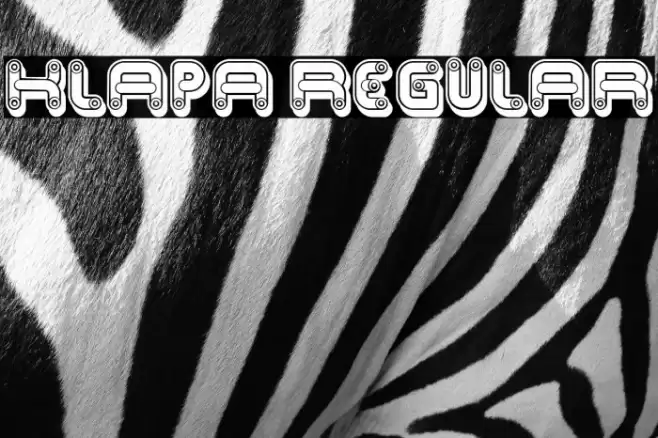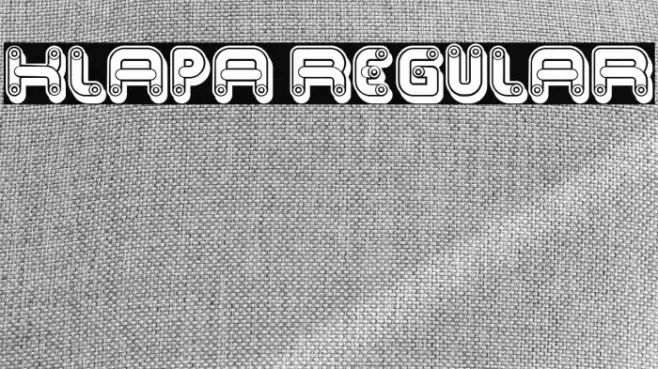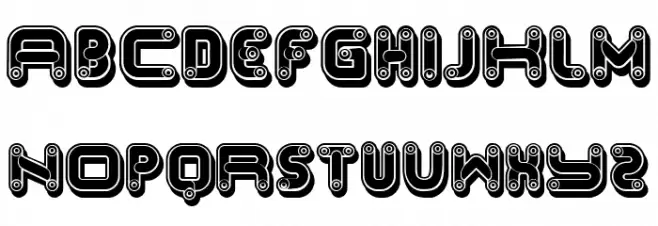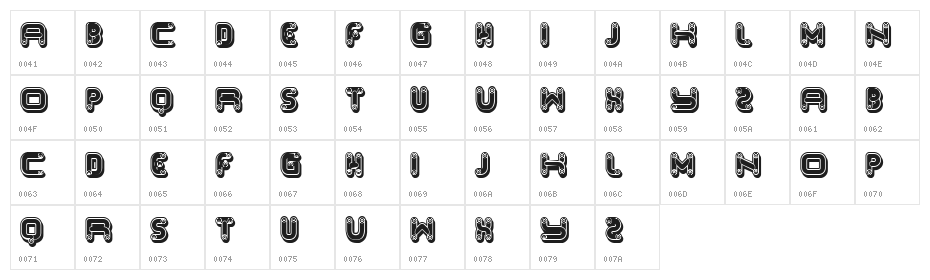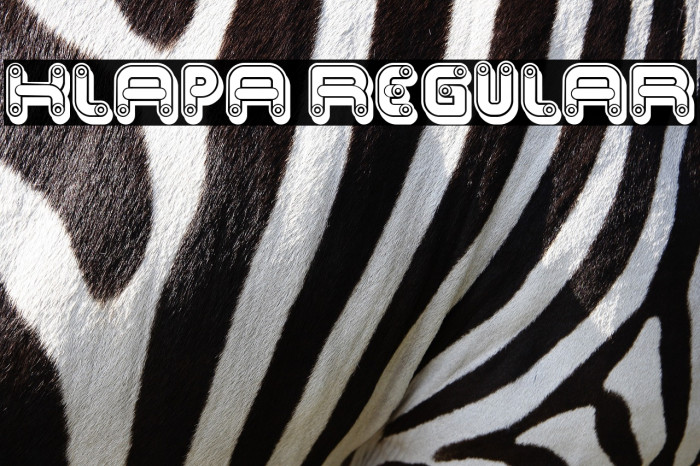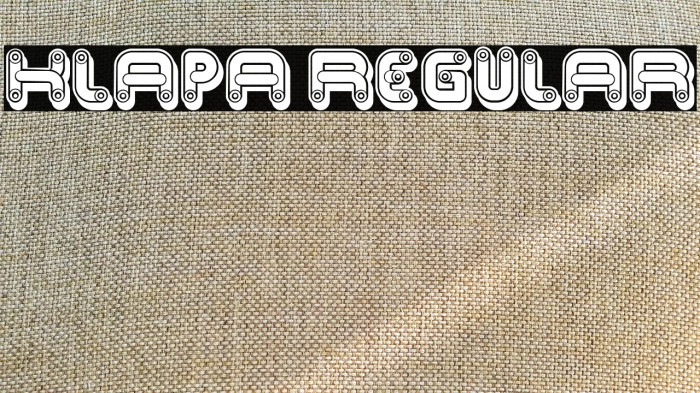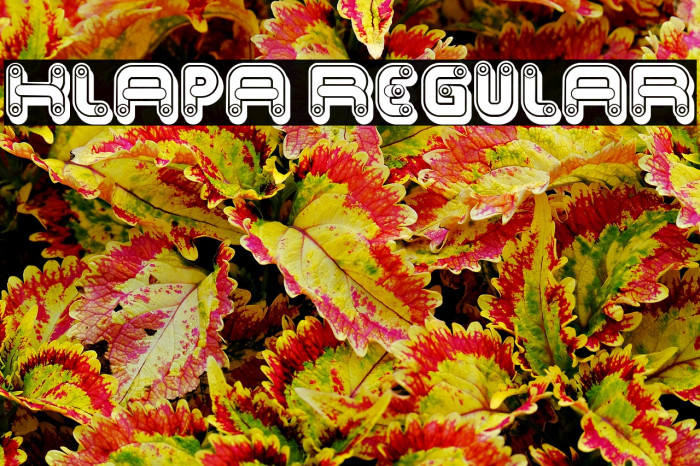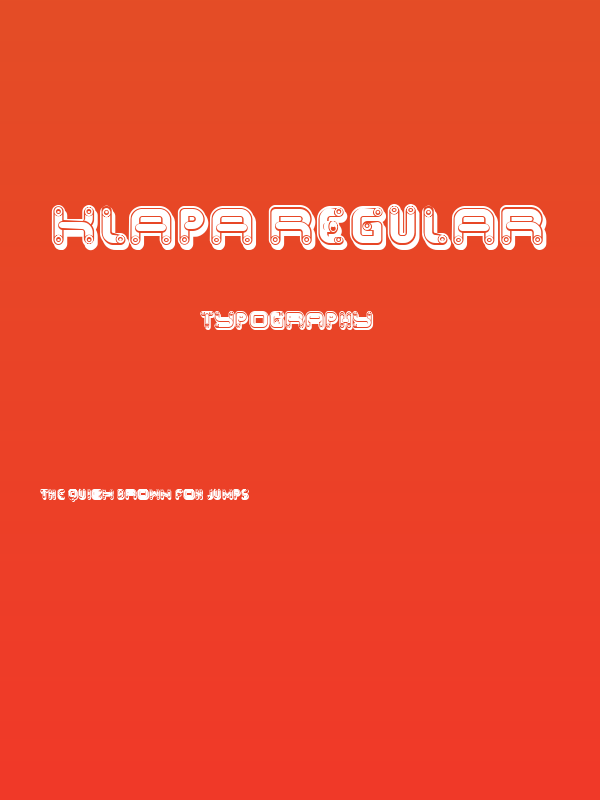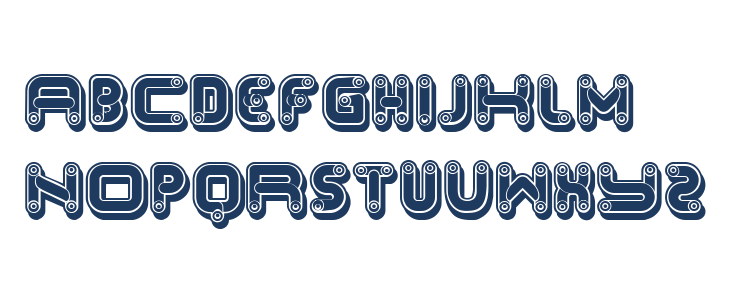
Klapa Regular Font
Klapa Regular Description
This font features a unique, decorative style with a mechanical and industrial feel. Each character is designed with a bold outline and intricate inner details that resemble gears or circuit patterns, giving it a futuristic and tech-inspired appearance. The letters are uniformly bold, with consistent stroke thickness throughout, creating a strong visual impact. The design is highly stylized, making it ideal for projects that require a distinctive and eye-catching typeface. The font's geometric shapes and symmetrical design elements contribute to its modern and innovative look.
A decorative, tech-inspired font with bold outlines and intricate inner details from Uncategorized fonts.
- Proposed Projects: Ideal for technology-themed posters, video game titles, branding for tech companies, and futuristic design projects.